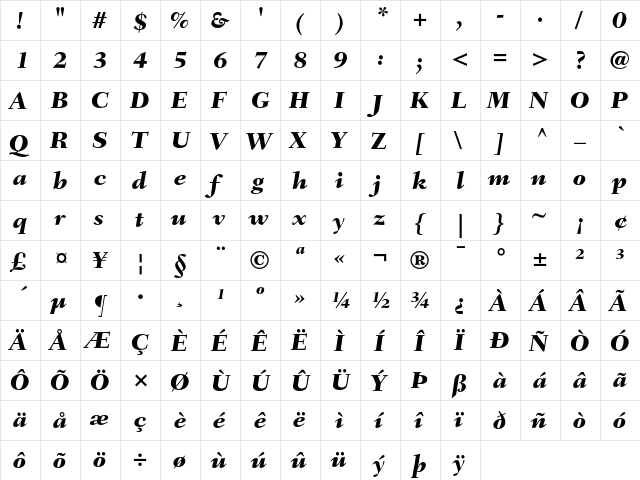
Fairfield LH 86 Heavy Italic
Design Context for Fairfield LH Typeface
Fairfield LH offers clean, dependable letterforms without strong stylistic allegiance, making it a practical choice for designers who need flexibility. Its italic angle brings a sense of urgency and motion to the letterforms.
Pro Tip: Use Fairfield LH for emphasis, pull quotes, and subheadings where its slanted energy can add rhythm to the layout.